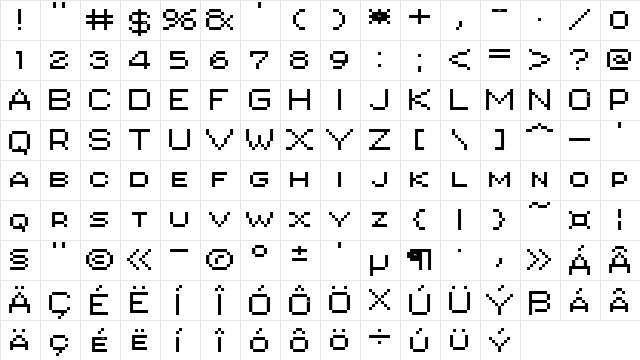
PIXgothic_7 Regular
| Foundry | PIXELFONTY.PL |
| Designer | PIXELFONTY.PL |
Design Context for PIXgothic_7 Typeface
PIXgothic_7 takes a clean, functional approach — its unadorned letterforms prioritise legibility and work reliably across screen and print environments.
Font Pairing: Works well alongside a characterful serif or display font that can carry the expressive load while PIXgothic_7 handles the functional copy.
Pro Tip: Use PIXgothic_7 for UI labels, navigation, and short-form body copy where clean legibility is the priority.